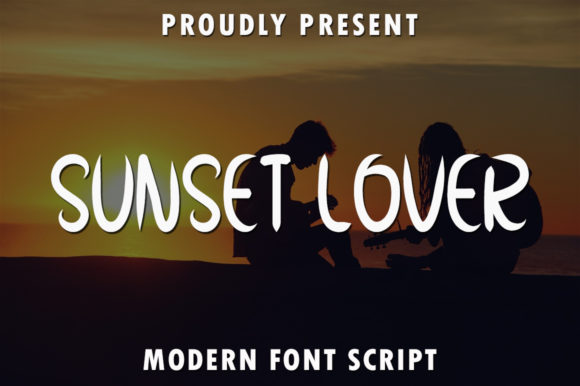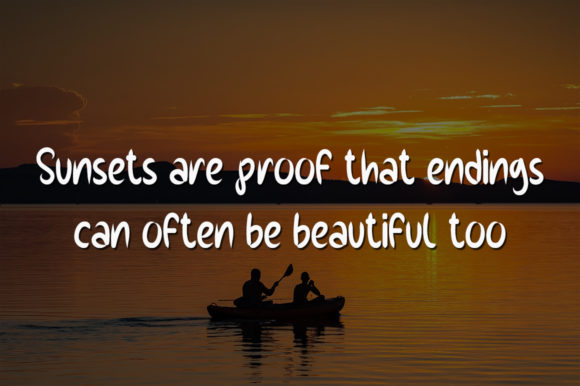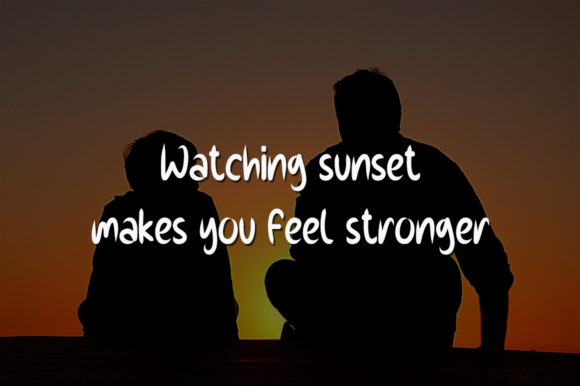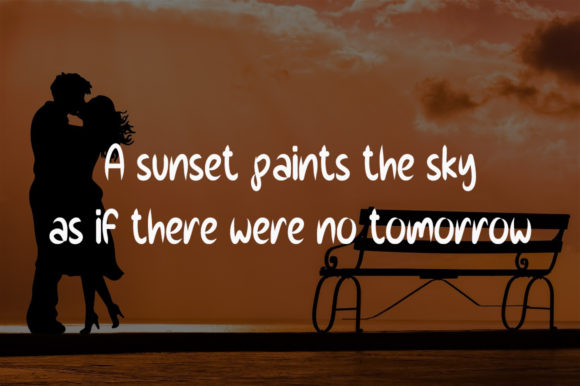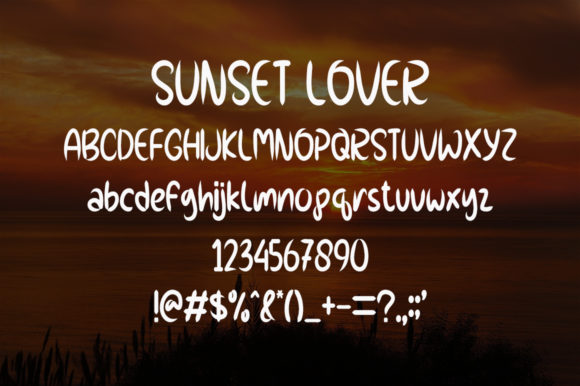
Sunset Lover Font
About Sunset Lover Font
Sunset Lover is a delightful and charming paint brushed handwritten font that radiates warmth and sweetness. Whether you’re using it for crafting, digital designing, presentations, or creating greeting cards, this font is the perfect choice.
The paint brushed style of Sunset Lover gives it a unique and artistic appearance. Each letter has a handcrafted feel with imperfect brush strokes, adding a touch of authenticity and organic charm to your designs. The irregularities in the letterforms give the font a natural and whimsical look, reminiscent of brushstrokes on a canvas.
The warm and inviting nature of Sunset Lover makes it well-suited for a variety of creative projects. Whether you’re creating handmade cards, designing social media graphics, or crafting digital artwork, this font will infuse your designs with a sense of coziness and happiness.
Sunset Lover is versatile and can be used in both digital and print mediums. Its legibility ensures that your message is clear and easy to read, while its painted texture adds a unique visual interest. The font’s playful and approachable style makes it perfect for conveying a friendly and inviting tone in your designs.
You can use Sunset Lover to create stunning greeting cards for special occasions, such as birthdays, anniversaries, or weddings. Its warm and handwritten feel adds a personal touch, making your cards feel more heartfelt and sincere.
Additionally, Sunset Lover can be used to enhance presentations, adding a touch of creativity and visual appeal to your slides. It can also be applied to digital designs, such as social media posts, blog graphics, or website headers, to infuse them with a cheerful and artistic vibe.
Embrace the sweet and warm vibes of Sunset Lover and let it bring a touch of artistic charm to your projects. Whether you’re a hobbyist, a professional designer, or simply someone who enjoys creating beautiful things, this font will add a delightful and inviting element to your creative endeavors.